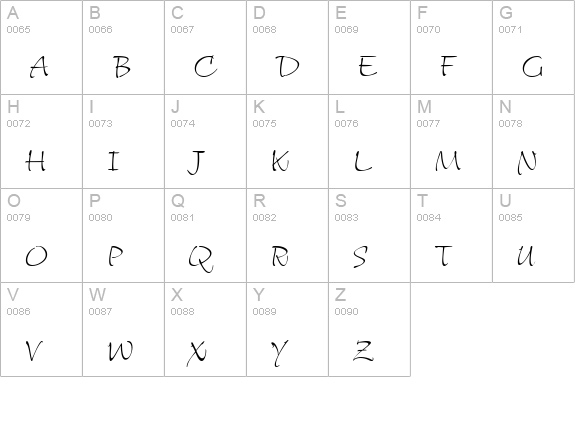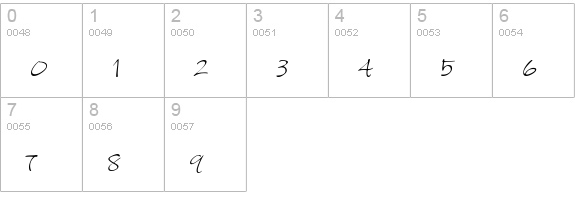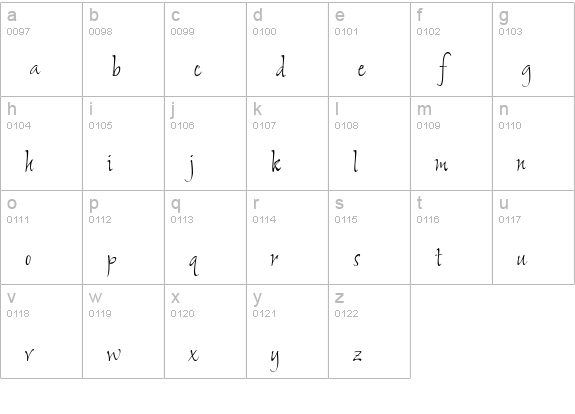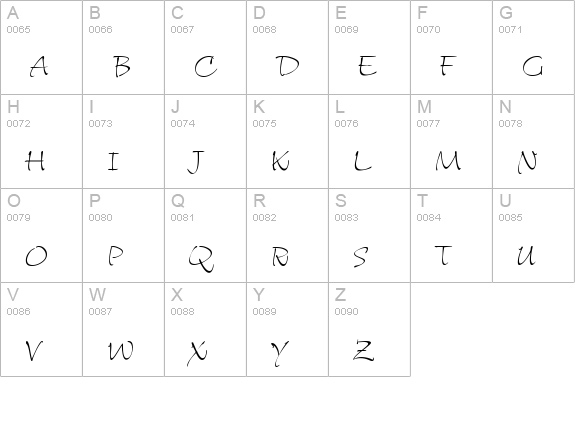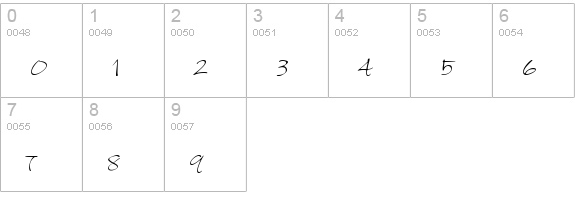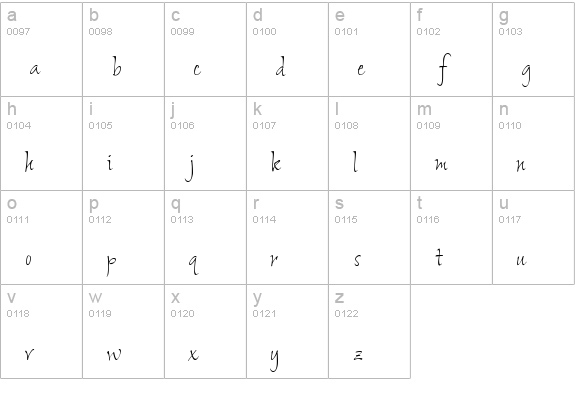
Shalimar ROB Font Details
Shalimar ROB font is a striking and elegant typeface that exudes a sense of sophistication and class. With its unique blend of sharp edges and smooth curves, this font captures attention and adds a touch of modernity to any design project. Designed with versatility in mind, Shalimar ROB font is perfect for both display purposes and body text. Its clean and legible letterforms make it ideal for various design applications, such as logos, headlines, posters, and branding materials. Whether used in print or digital media, this font ensures that your message is conveyed with style and clarity. What makes Shalimar ROB font even more appealing is that it is available for free download at FontsMarket.com. This means that you can easily access and use this beautiful typeface without any cost. FontsMarket.com is a trusted source for high-quality fonts, offering a wide range of options for designers and typographers alike. With Shalimar ROB font, you can elevate your design projects to new heights. Its timeless aesthetic and effortless legibility make it a versatile choice for a wide range of creative endeavors. Whether you're a graphic designer, a web developer, or a typographic enthusiast, this font will surely become a valuable addition to your font library. So why wait? Experience the beauty and versatility of Shalimar ROB font today by downloading it for free at FontsMarket.com. Start creating visually stunning designs that leave a lasting impression.